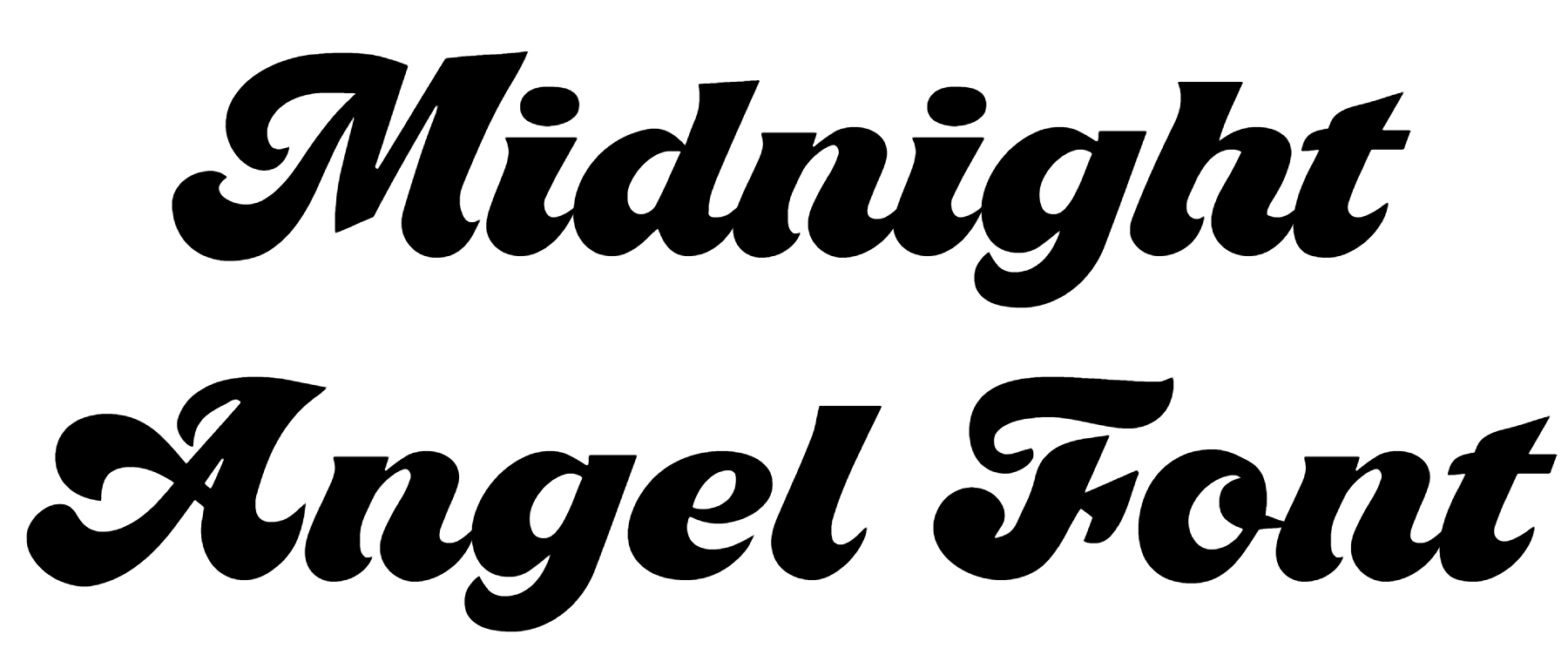
Midnight Angel
Midnight Angel is a fancy font created by BlackFridayFont (2025). It's a decorative display font with plenty of personality, made to grab attention. It's a free download, and you can try it with your own text in the preview above first.
What You Can Type With Midnight Angel
You get every letter from A to Z in both cases and all the numbers from 0 to 9, which means Midnight Angel can handle full sentences, dates and prices. Everyday marks like &, !, ? and @ are there too. Thanks to its accented letters, it also works for Spanish, French, German, Portuguese and Italian, not just English.
Where Midnight Angel Works Best
Think of Midnight Angel for posters, logos and eye-catching headlines. Use it for one standout word or headline and let simpler fonts handle the rest.
Who designed Midnight Angel font?
Does Midnight Angel support accented letters?
Yes. Midnight Angel includes the accented letters needed for Spanish, French, German, Portuguese and Italian, so it works for more than just English.